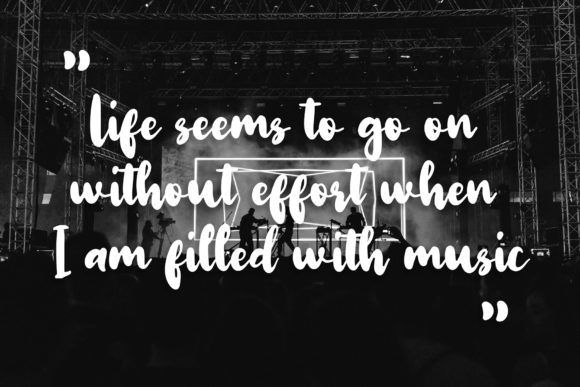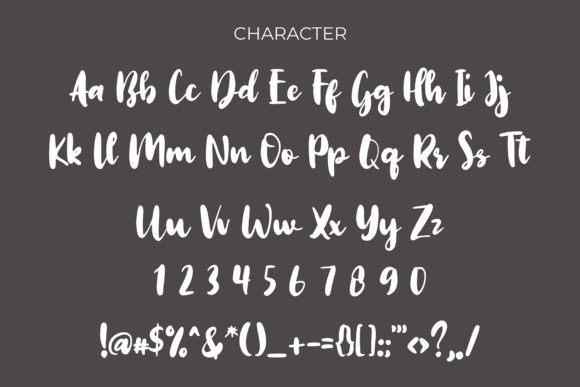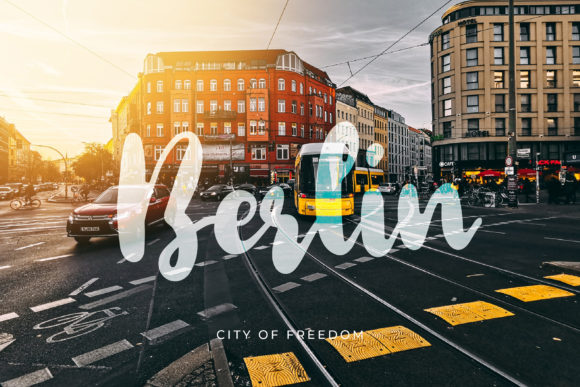
Discover the Charm of Omah Font
Have you ever been working on a creative project and suddenly, the perfect font pops into your head? For designers, this moment is a game-changer. It’s the moment when everything clicks, and your vision starts to take shape. For me, that moment happened when I stumbled upon the Omah Font. Its unique brush style and casual charm instantly caught my attention, and I knew I had to share it with the world.
As a valuable design resource, the Omah Font is perfect for designers looking to add a touch of personality to their work. Whether you’re working on a project with a transparent background or need a font that can stand out on a busy design, Omah Font is the perfect choice. With its high-quality design and free download option, it’s a must-have in every designer’s toolkit.
Key Features of Omah Font
- High-quality design resource ideal for creative projects and print materials
- Comes with a transparent background for easy layering and composition
- Designed at 1024 x 1024 pixels resolution, ensuring crisp and clear display
- Supports various font sizes and styles, making it versatile for different design applications
- Perfect for use in logos, branding materials, and other visual identity elements
Honest Review: Omah Font
As a designer, I’m always on the lookout for high-quality design resources that can elevate my creative projects. The Omah Font is one such resource that caught my attention, and I’m excited to share my honest review.
What works well: ✨ The Omah Font is incredibly versatile and can be used for a wide range of design projects, from branding and logos to digital products and websites. Its modern and sleek design makes it perfect for creating a professional and polished look. I also appreciate the fact that it’s a free download, making it an excellent addition to any designer’s toolkit.
What doesn’t work so well: ⚠️ One of the limitations of the Omah Font is its limited character set. While it’s suitable for most design projects, it may not be enough for designers who require a more extensive character set for their projects. Additionally, the transparent background option can be a bit finicky to work with, especially for those who are new to design.
Overall, I’m impressed with the Omah Font and would highly recommend it to designers who are looking for a high-quality, free design resource. With a little creativity, it can be a fantastic addition to any design project.
Pros:
- Modern and sleek design
- Wide range of design applications
Cons:
- Limited character set
- Transparent background can be finicky
Tips for Getting the Most Out of Omah Font
To get the most out of Omah Font, experiment with different font styles, sizes, and combinations to find the perfect look for your creative project. You can also use the font in conjunction with other design elements to create a unique and visually appealing design.
The Omah Font is ideal for a variety of creative projects, including graphic design, digital art, and print design. It’s also great for use in social media graphics, blog posts, and other online content.